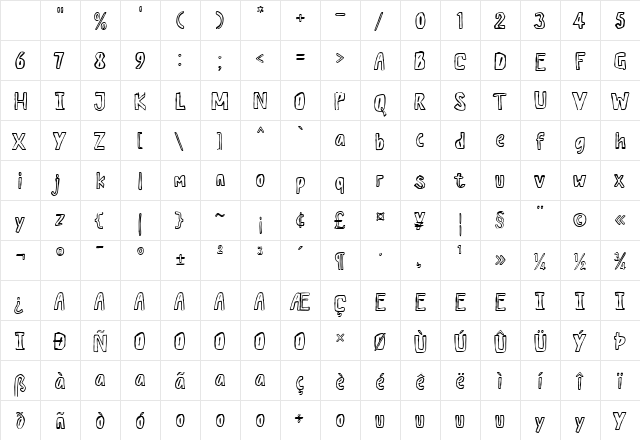
Complete Stone Old - Demo Regular glyph index. Displaying only characters natively supported by Stone Old - Demo Regular font.
Stone Old - Demo is a composed and adaptable typeface that performs quietly and consistently across a wide range of design contexts.